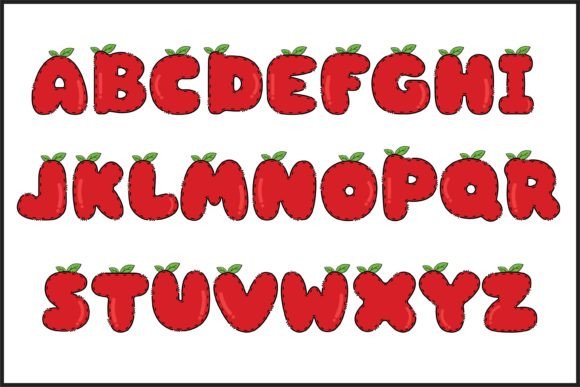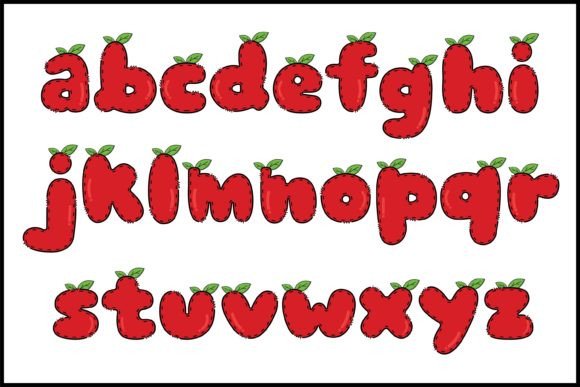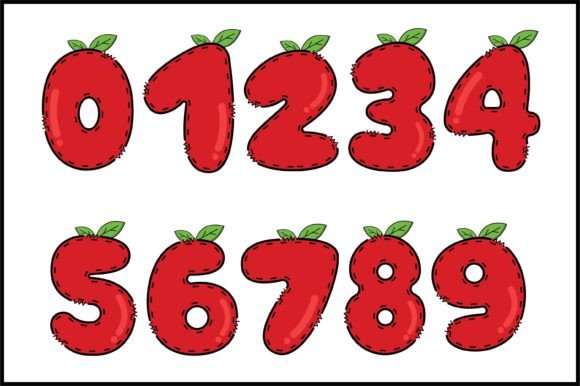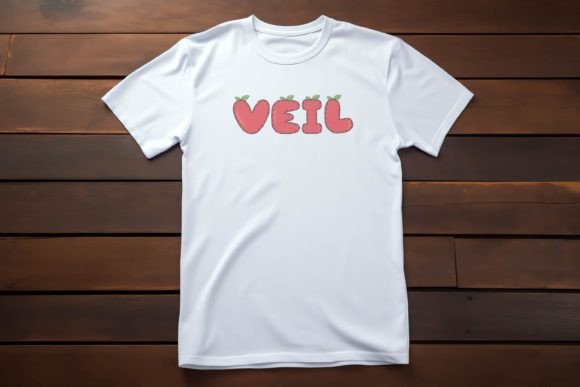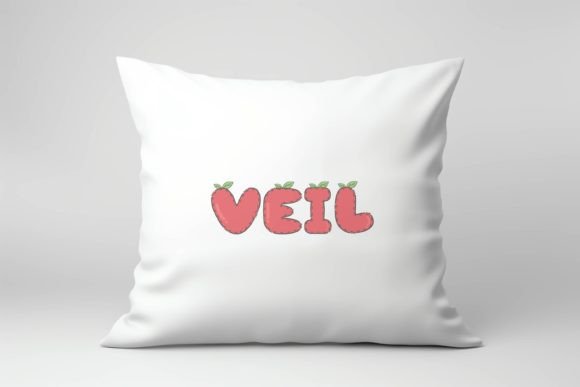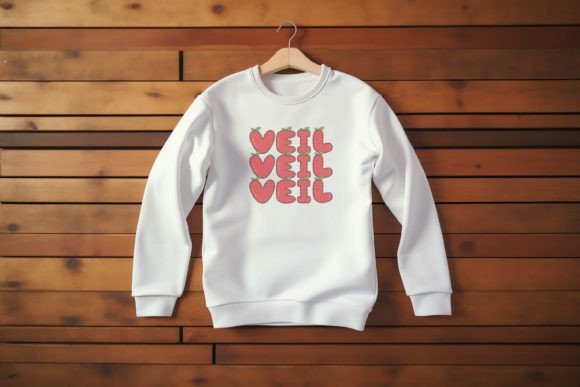
Introduction to Red Berry Font
These fonts are often used in designs that aim to convey a playful or artistic feel, such as children’s books, posters, invitations, greeting cards, and more.
For instance, children’s books often utilize fonts that are whimsical, colorful, and easy to read, creating an engaging reading experience for young audiences .
Key Features of Red Berry Font
Why Choose Red Berry Font?